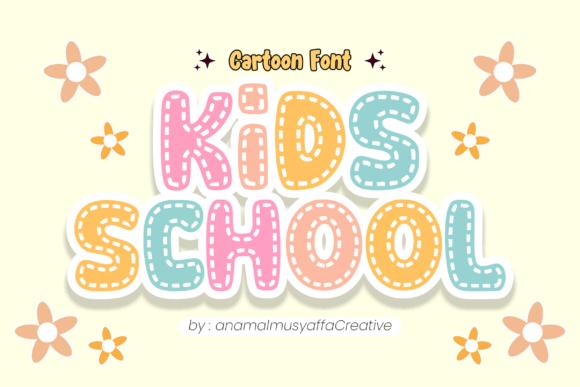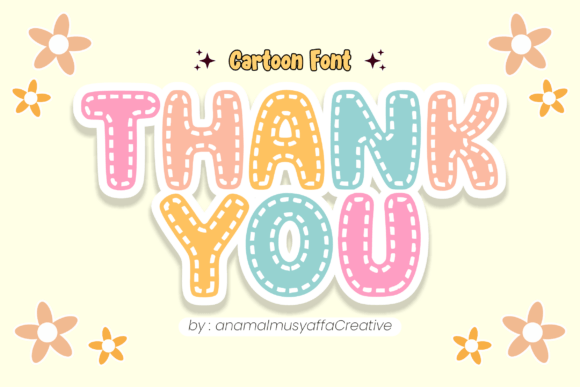
Discover the Charm of Cutestitch Regular Font
Are you a designer or crafter looking for a font that can add a touch of whimsy and playfulness to your projects? Look no further than the Cutestitch Regular Font. This adorable contemporary children’s font is meticulously adorned with attractive stitches, making it perfect for a variety of creative applications.
What is Cutestitch Regular Font?
Cutestitch Regular Font is a unique and charming font that is designed to bring a smile to your face. Its contemporary and children’s font style makes it an excellent choice for projects that require a playful and youthful touch. The font’s attractive stitches are carefully crafted to ensure effortless identification, making it easy to read and recognize.
Cutestitch Regular Font is an incredibly versatile font that can thrive in a wide range of creative applications. Some of the most popular uses for this font include:
- Lively sublimation designs on apparel: Add a touch of personality to t-shirts, hoodies, and other clothing items with this font. Its playful and colorful design makes it perfect for creating eye-catching sublimation designs that will stand out.
- Lifestyle items: Mugs, tote bags, and other lifestyle items can be transformed with the Cutestitch Regular Font. Its attractive stitches and contemporary design make it an excellent choice for creating fun and functional designs.
- Dynamic animations: This font is also perfect for creating dynamic and engaging animations. Its playful and youthful style makes it an excellent choice for animations that require a touch of whimsy and fun.
- Delightful comic titles: Add a touch of playfulness to your comic titles with the Cutestitch Regular Font. Its attractive stitches and contemporary design make it an excellent choice for creating eye-catching and engaging comic titles.
Fuel Your Creativity
The Cutestitch Regular Font is designed to fuel your creativity and inspire your next project. With its unique and charming design, this font can help you create a wide range of creative projects that will stand out from the crowd. Whether you’re a designer, crafter, or artist, this font is sure to become a favorite in your collection.
Key Features of Cutestitch Regular Font
The Cutestitch Regular Font has several key features that make it an excellent choice for creative projects. Some of its key features include:
- Contemporary and children’s font style: This font has a unique and charming design that is perfect for projects that require a playful and youthful touch.
- Attractive stitches: The font’s attractive stitches are carefully crafted to ensure effortless identification, making it easy to read and recognize.
- Versatile: This font can thrive in a wide range of creative applications, from lively sublimation designs on apparel to dynamic animations.
In conclusion, the Cutestitch Regular Font is a unique and charming font that is perfect for designers and crafters looking to add a touch of whimsy and playfulness to their projects. With its contemporary and children’s font style, attractive stitches, and versatility, this font is sure to become a favorite in your collection. So why wait? Discover the charm of Cutestitch Regular Font today and fuel your creativity with this adorable font.
Tips and Tricks for Using Cutestitch Regular Font
Here are a few tips and tricks for using the Cutestitch Regular Font in your creative projects:
- Experiment with different colors: The Cutestitch Regular Font looks great in a variety of colors, so don’t be afraid to experiment and find the perfect color for your project.
- Pair it with other fonts: This font pairs well with other fonts, so try combining it with different fonts to create a unique and eye-catching design.
- Use it in different sizes: The Cutestitch Regular Font can be used in a variety of sizes, from small to large, so experiment with different sizes to find the perfect fit for your project.
Here are a few frequently asked questions about the Cutestitch Regular Font:
- What is the Cutestitch Regular Font?: The Cutestitch Regular Font is a unique and charming font that is designed to bring a smile to your face. Its contemporary and children’s font style makes it an excellent choice for projects that require a playful and youthful touch.
- What can I use the Cutestitch Regular Font for?: This font can be used for a wide range of creative projects, including lively sublimation designs on apparel, lifestyle items, dynamic animations, and delightful comic titles.
- Is the Cutestitch Regular Font easy to read?: Yes, the Cutestitch Regular Font is designed to be easy to read and recognize, thanks to its attractive stitches and clear design.